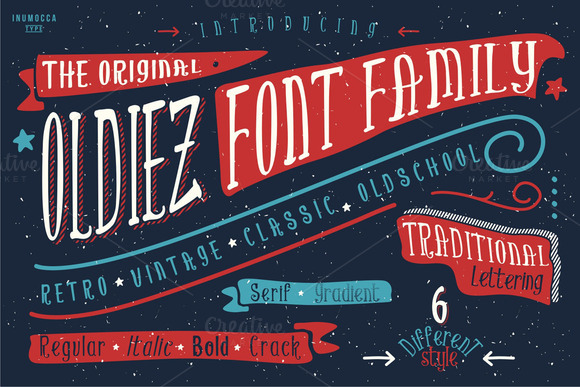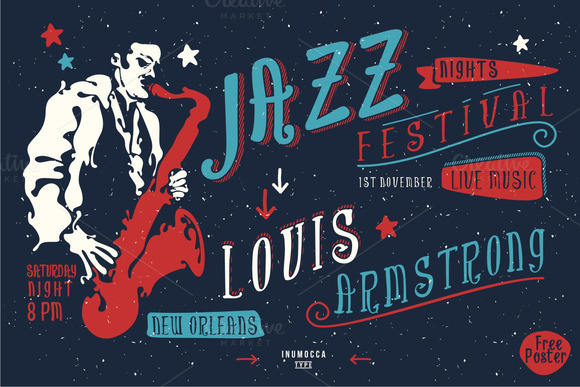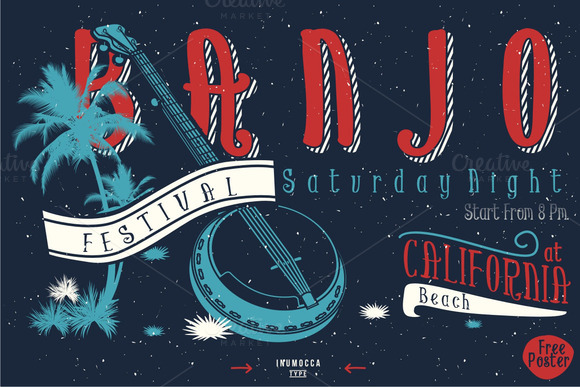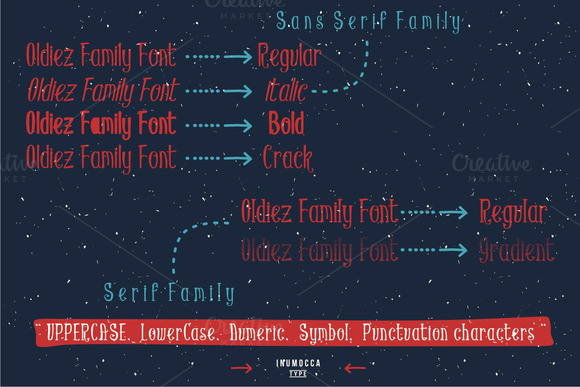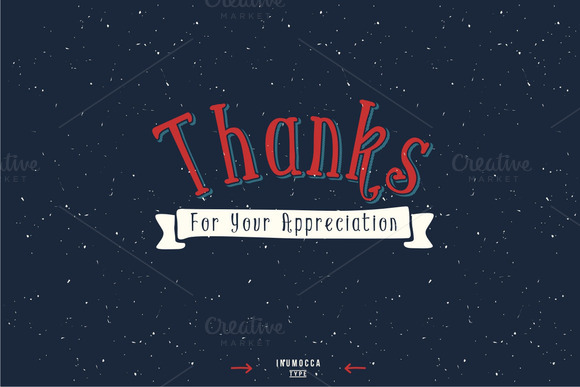
Oldiez Font Family + bonus
Oldiez Font Family its handmade lettering by me
include with 6 font :
• Oldiez regular Sans (UPPERCASE,LowerCase,Numeric,Symbol,Punctuation characters, Multilingual support)
• Oldiez italic Sans (UPPERCASE,LowerCase,Numeric,Symbol,Punctuation characters, Multilingual support)
• Oldiez bold Sans (UPPERCASE,LowerCase,Numeric,Symbol,Punctuation characters, Multilingual support)
• Oldiez crack Sans (UPPERCASE,LowerCase,Numeric,Symbol,Punctuation characters, Multilingual support)
• Oldiez regular Serif (UPPERCASE,LowerCase,Numeric,Symbol,Punctuation characters, Multilingual support)
• Oldiez gradient Serif (UPPERCASE,LowerCase,Numeric,Symbol,Punctuation characters, Multilingual support)